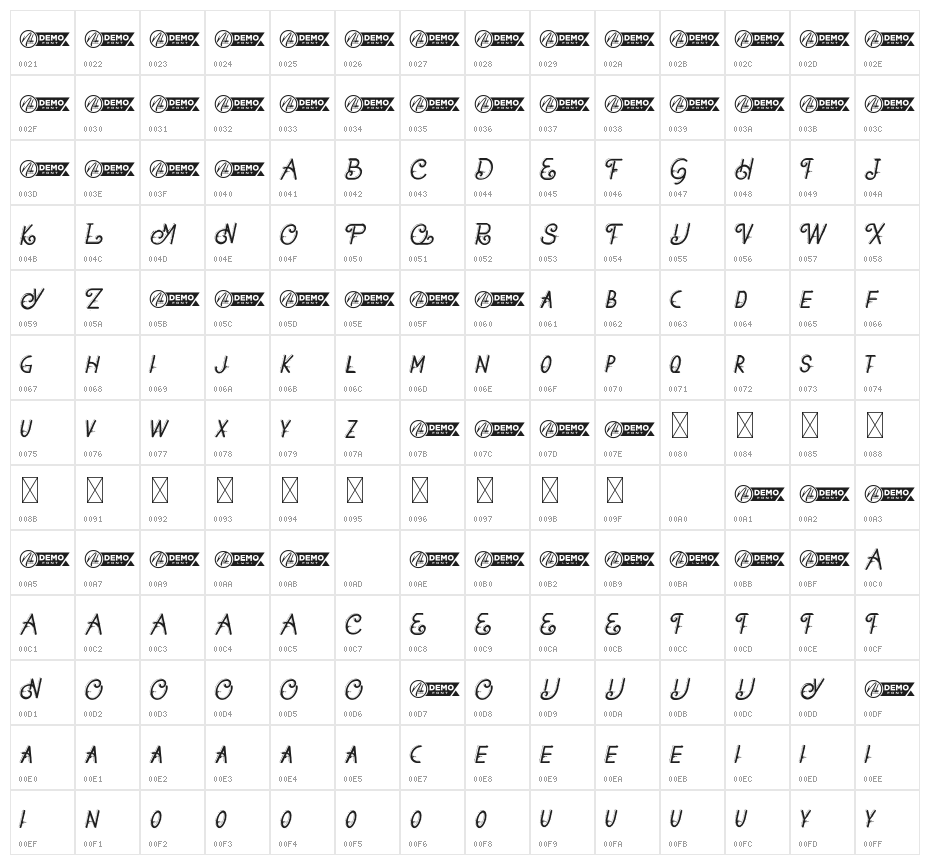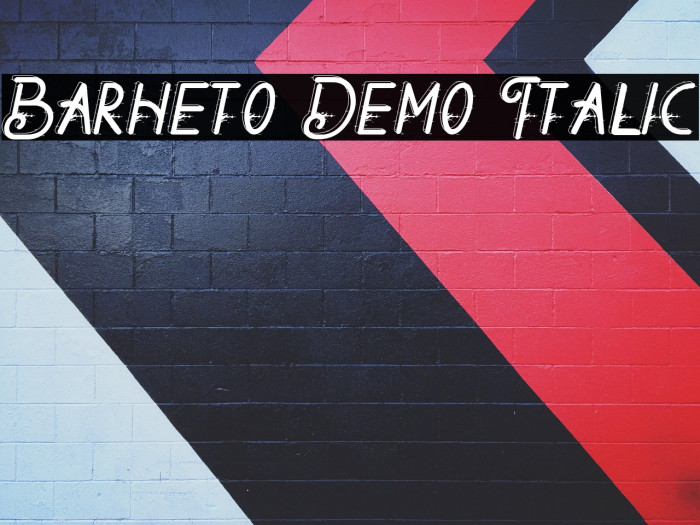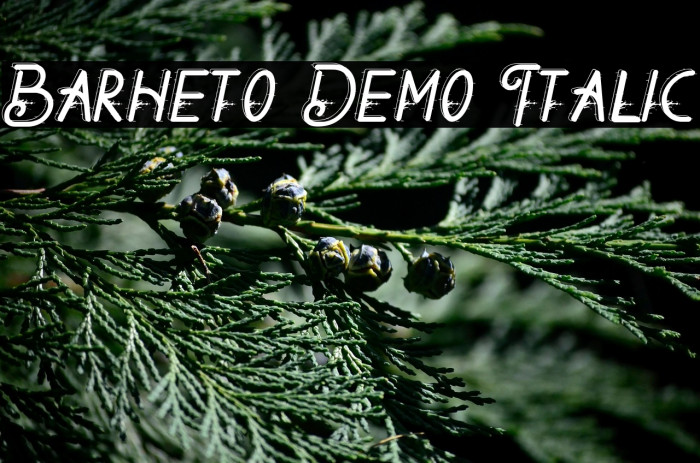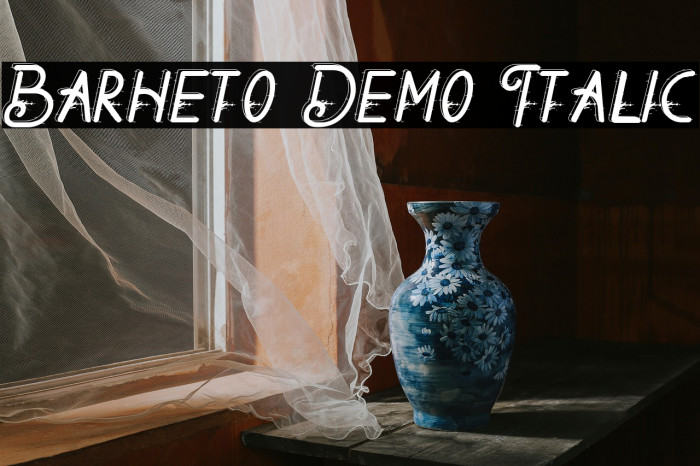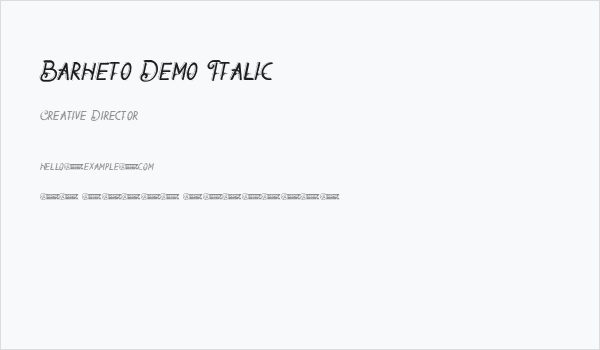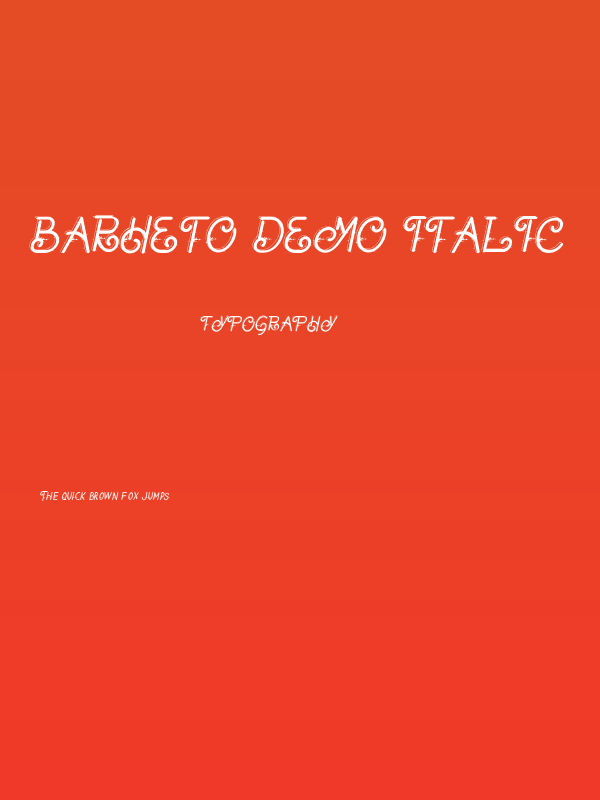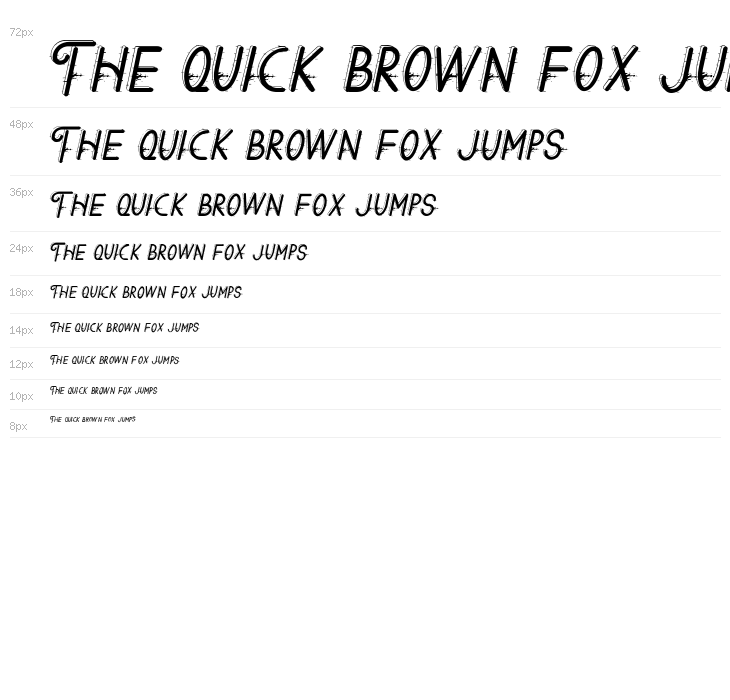
Barheto Demo Italic Font
Barheto Demo Italic Description
This font features a dynamic and energetic style, characterized by its italicized and decorative strokes. The letters have a hand-drawn appearance with a slightly distressed texture, giving them a unique and artistic flair. The uppercase and lowercase letters maintain a consistent style, with each character exhibiting a playful yet sophisticated design. The font's bold strokes and varying line thicknesses add depth and interest, making it stand out in any design. Its distinctive look is perfect for projects that require a creative and eye-catching typeface.
| Proposed Projects | Ideal for posters, logos, branding, and creative design projects that require a bold and artistic touch. |